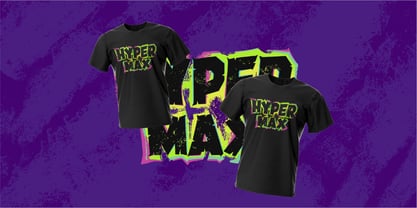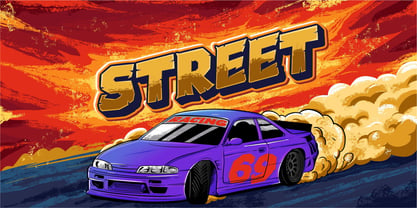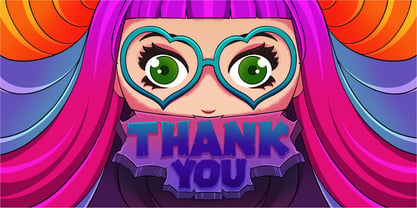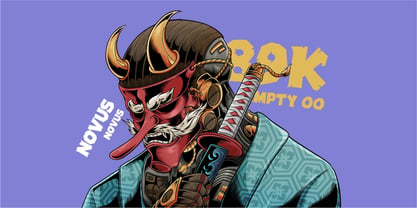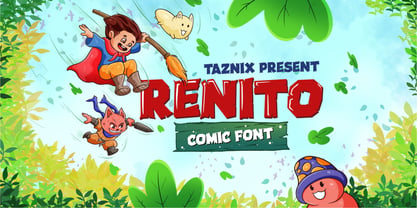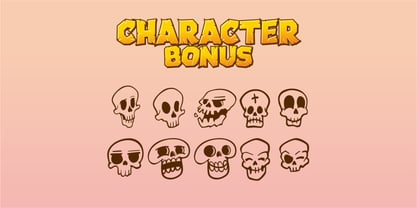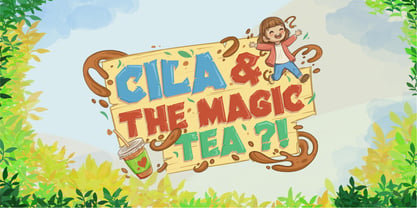
Renito
by Taznix Creative
The Renito Font Family was designed by Ricky Hartasni and published by Taznix Creative. Renito contains 1 styles. More about this family
Renito is a playful and expressive font that blends the charm of comic-style lettering with the bold energy of graffiti art. Designed with a lively personality, Renito features rounded shapes, dynamic strokes, and slightly exaggerated forms that give it a fun, hand-drawn feel. The font embraces a colorful concept, making it perfect for vibrant designs that aim to stand out. Each letter feels alive, as if it were sketched with creativity and spontaneity, while still maintaining readability. Its comic-inspired structure pairs seamlessly with graffiti influences, creating a unique balance between casual storytelling and urban edge. Renito works especially well for posters, children’s content, streetwear branding, and eye-catching headlines. Whether used in bright, contrasting palettes or layered color compositions, it brings a cheerful, energetic, and modern vibe to any design.
Designers: Ricky Hartasni
Foundry: Taznix Creative